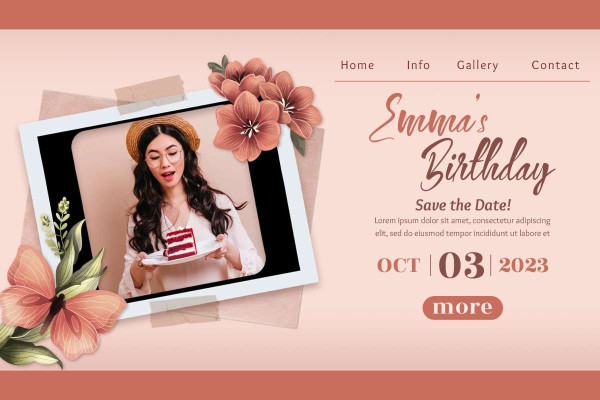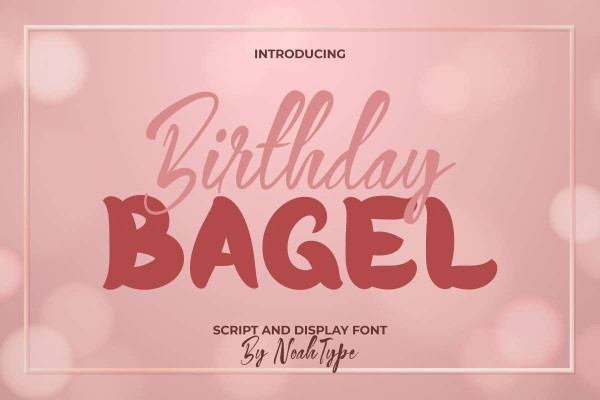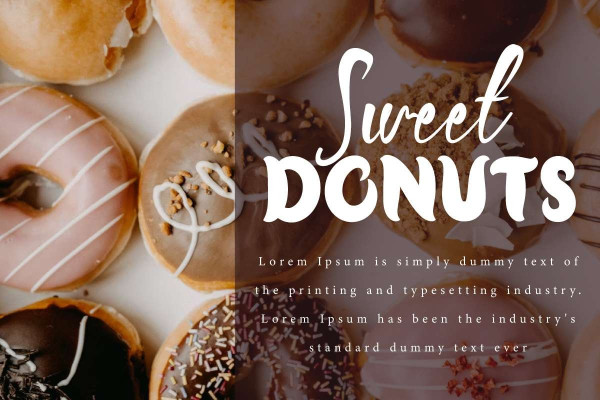
Birthday Bagel Font Duo
Birthday Bagel Font is a special font duo with two different styles: Script and Display. These two fonts still look good together even though the styles of the two fonts are quite different and still easy to read. It will be great for any industry, such as accessories, beauty product, café, event or wedding organizer, fashion, printing, restaurant, and more!
Both styles of Birthday Bagel Font include a full set of Uppercase and Lowercase Characters, Numbers and Punctuation. The only difference lies in the Display set, ALL CAPS for Uppercase and Lowercase Basic Characters of the same size. It will be amazing for many projects, such as business card, custom design, poster, product packaging, quote, signage, website, and any project that requires a lovely look!